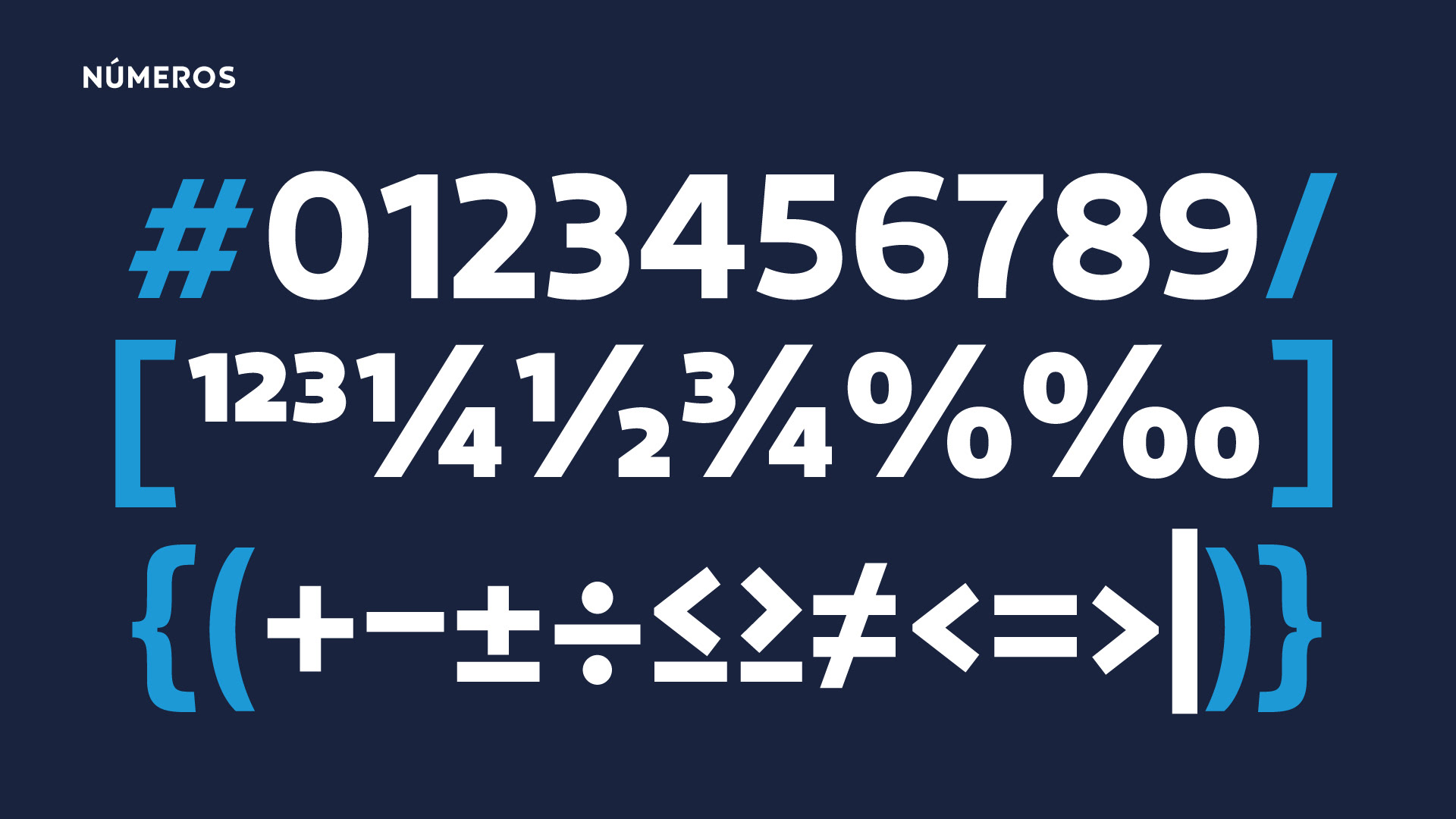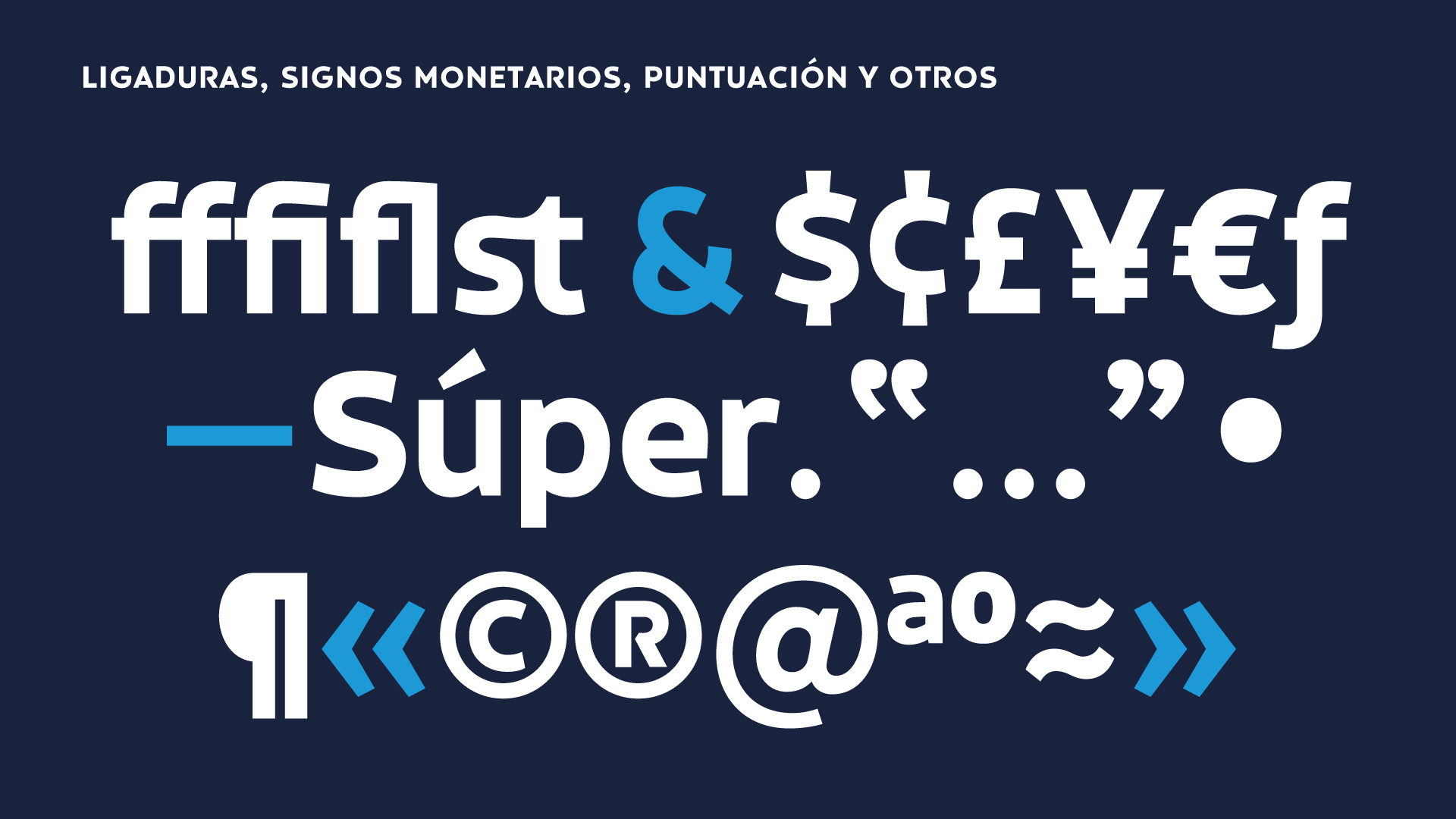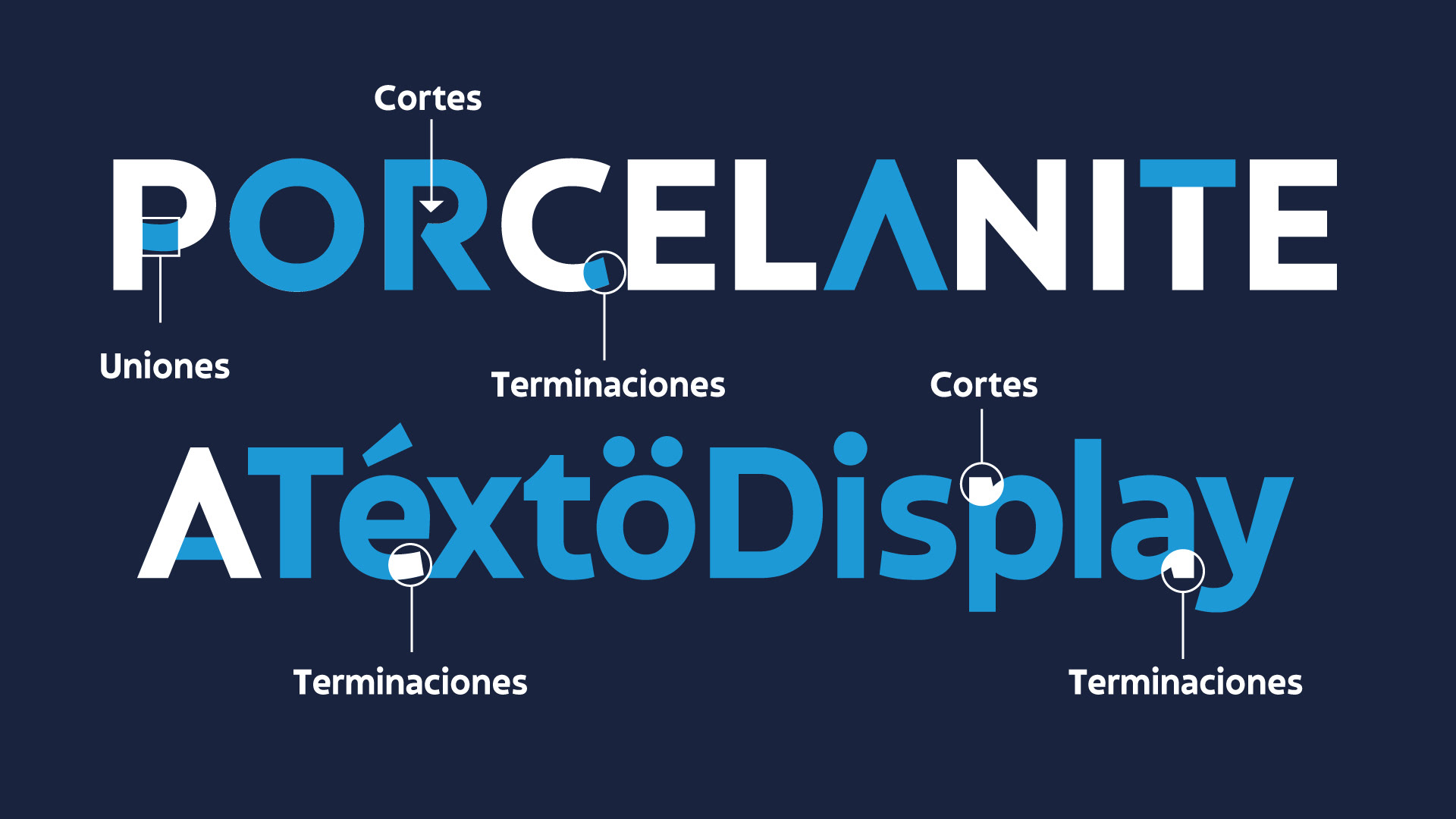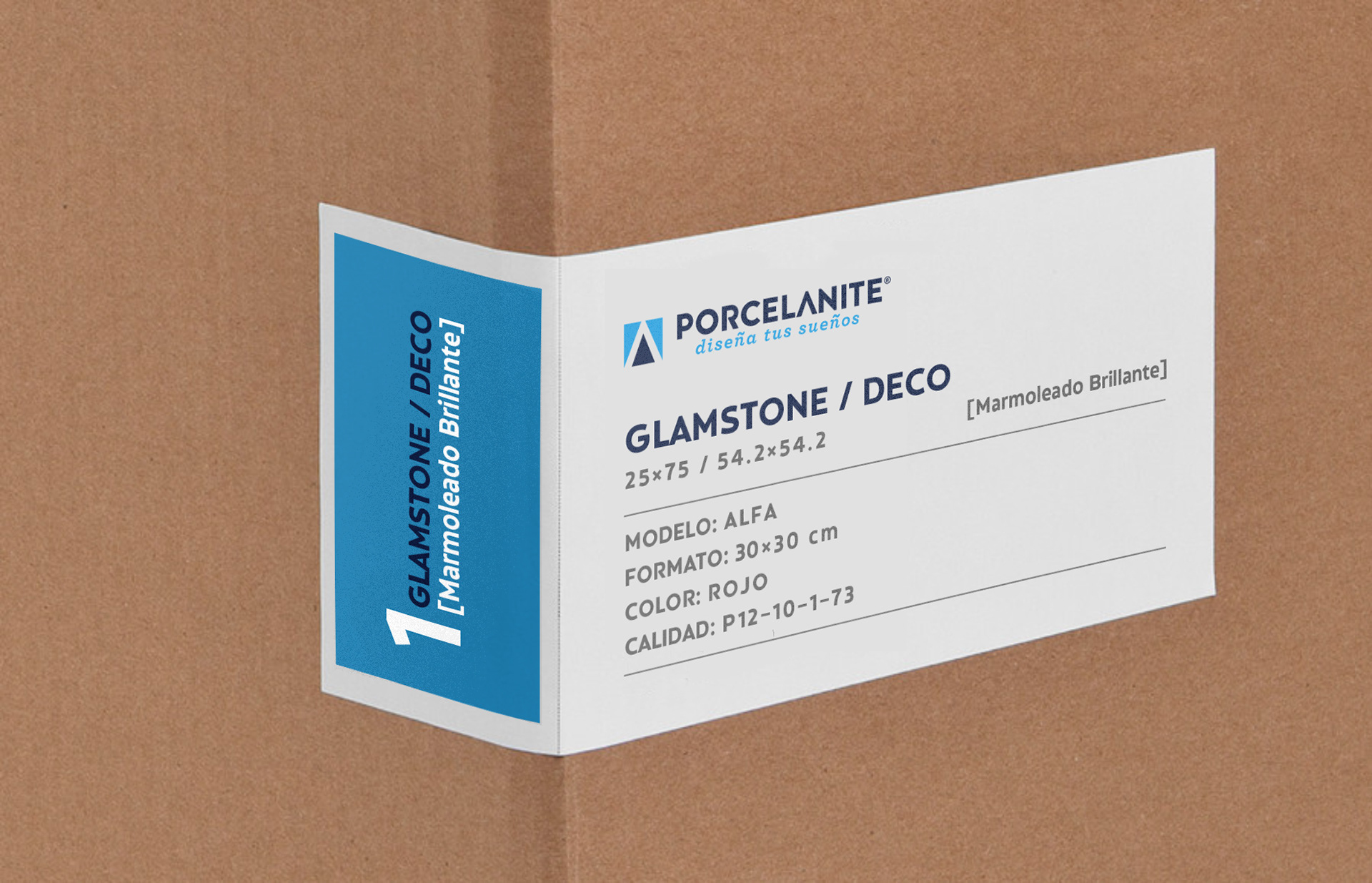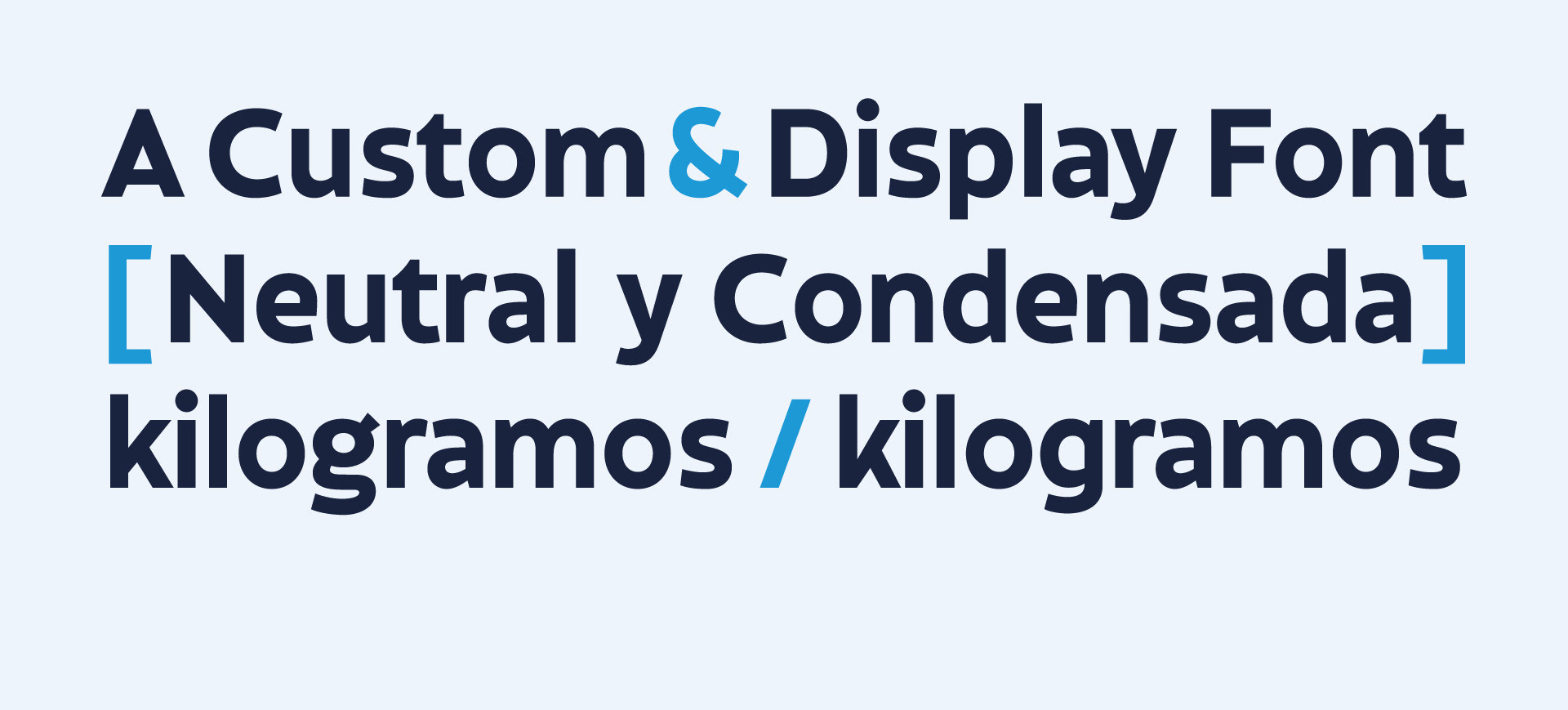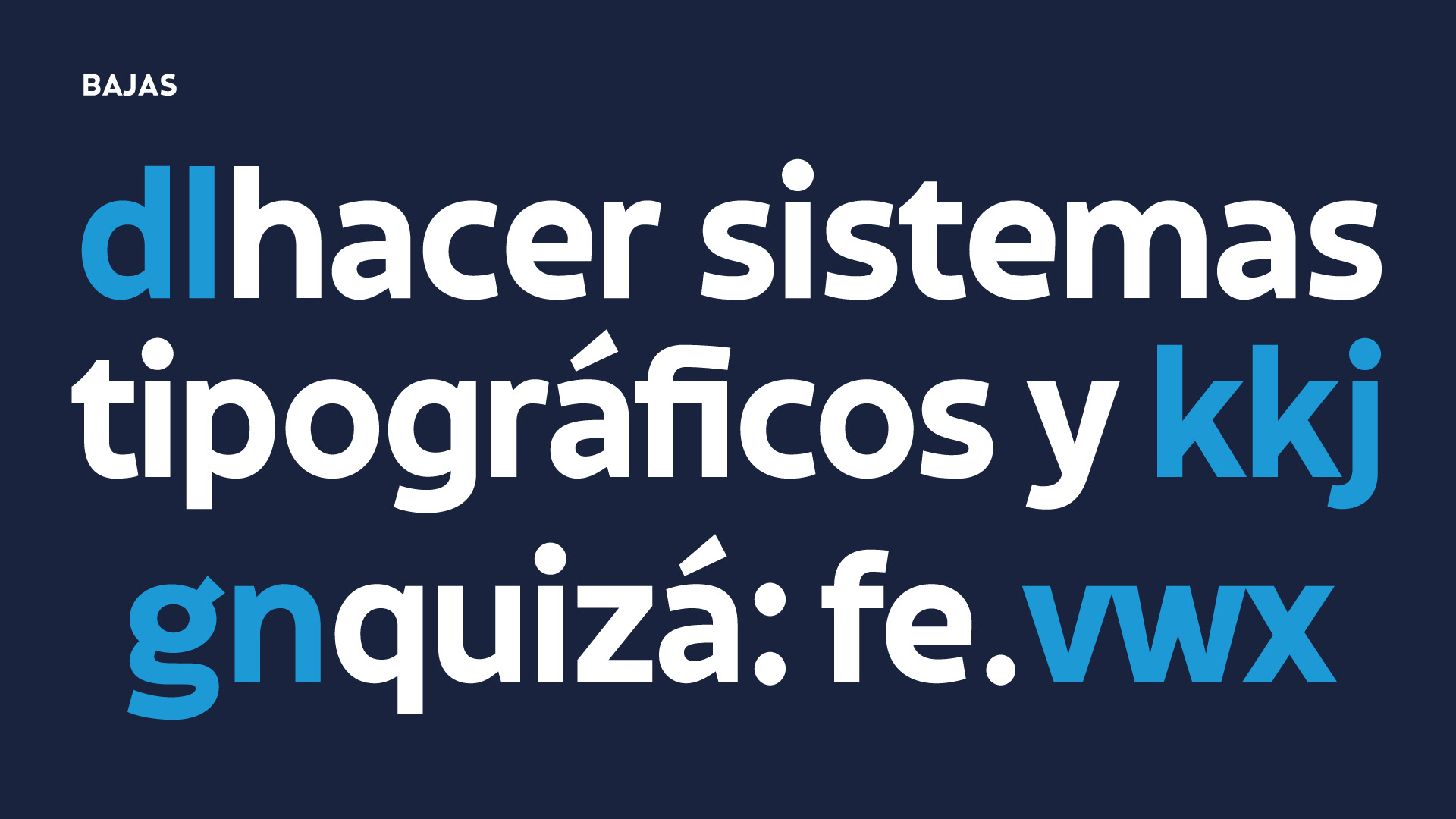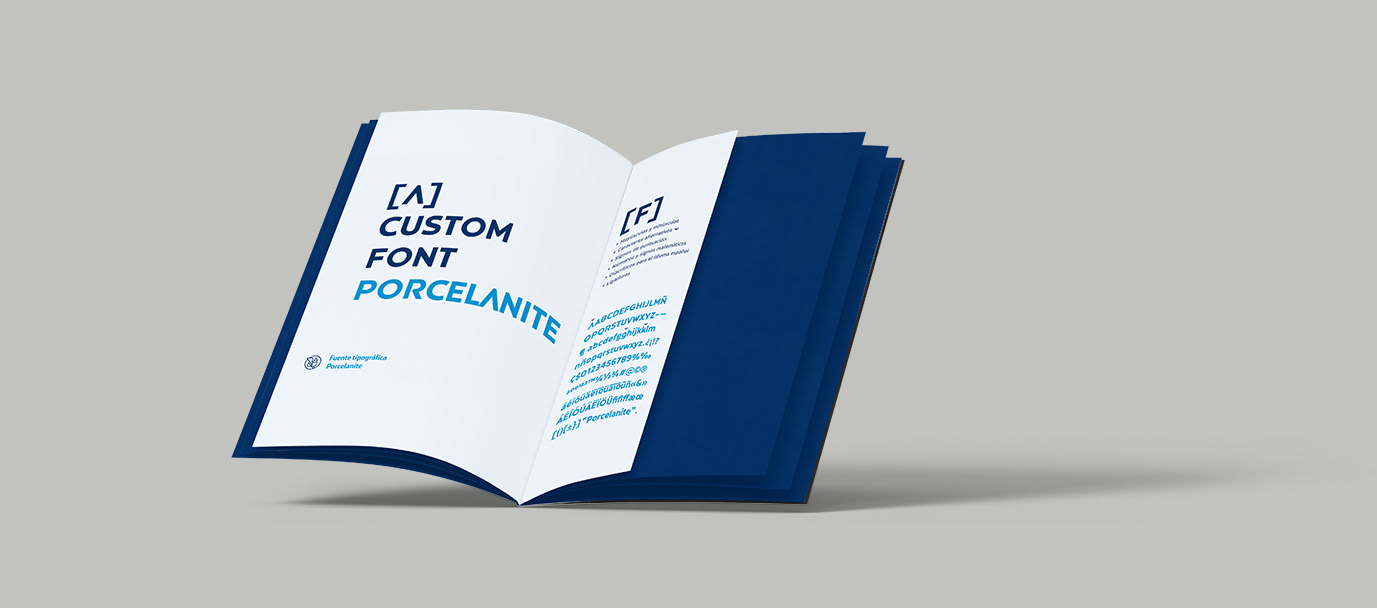
It is a grotesque, medium-weight, condensed sans serif font with little modulation. Its design is clean and neutral, and it is also a display source for packaging, displays and labels.